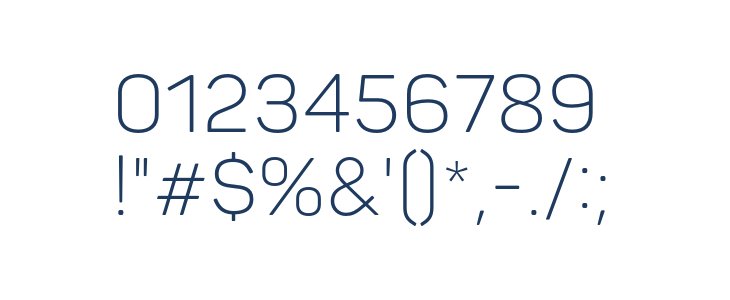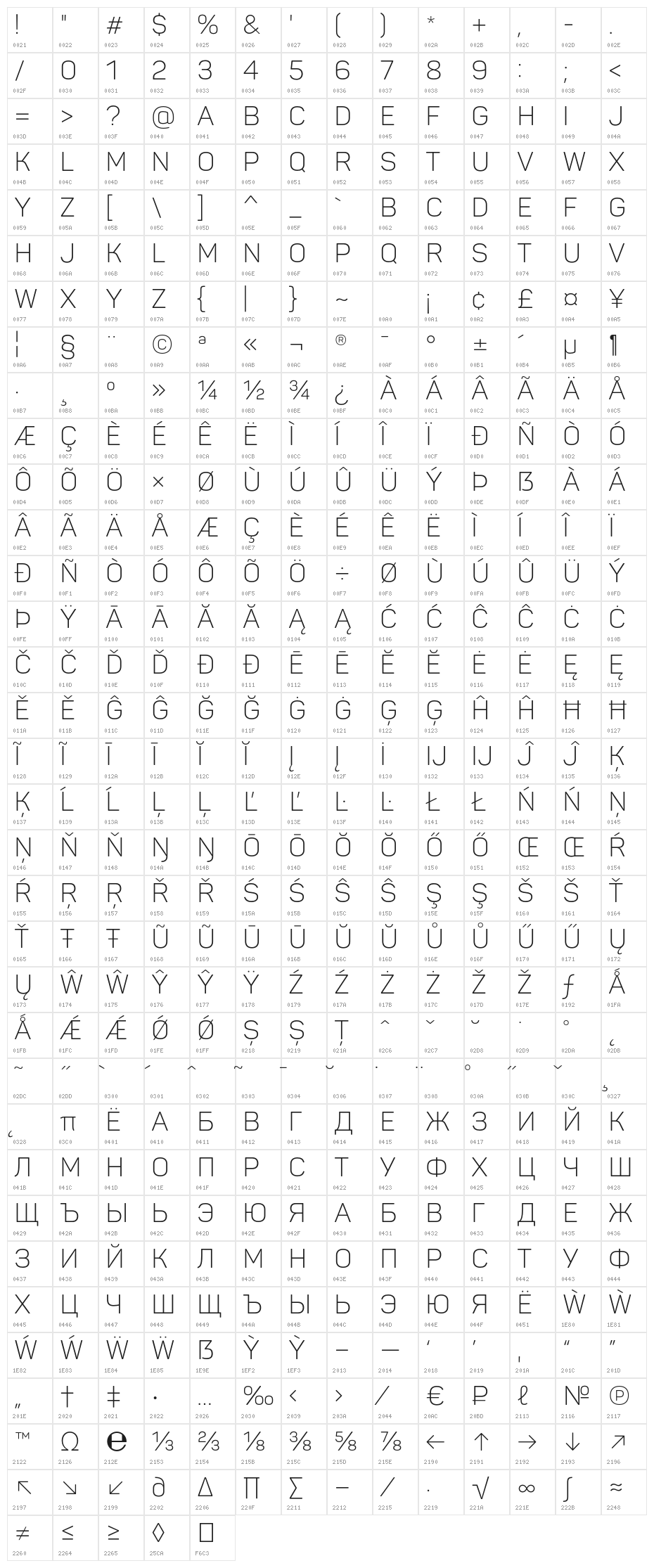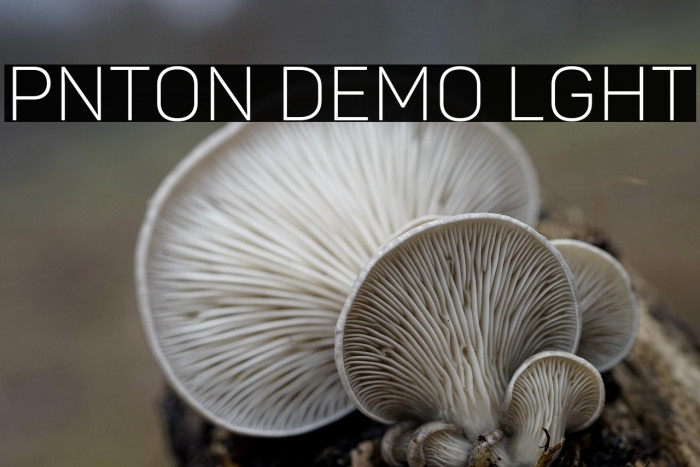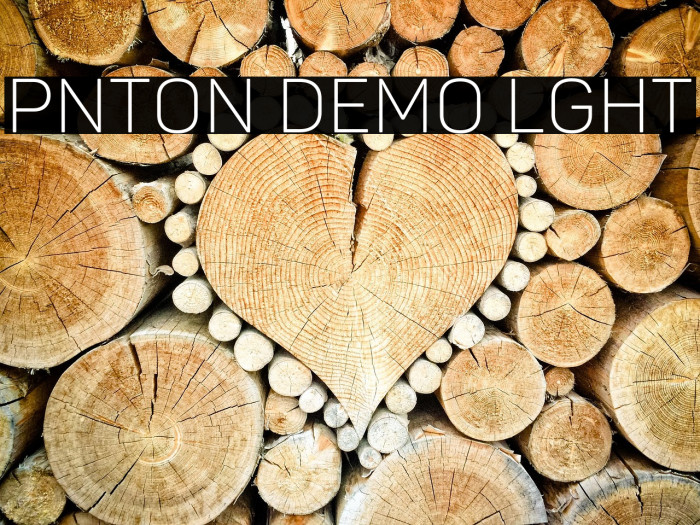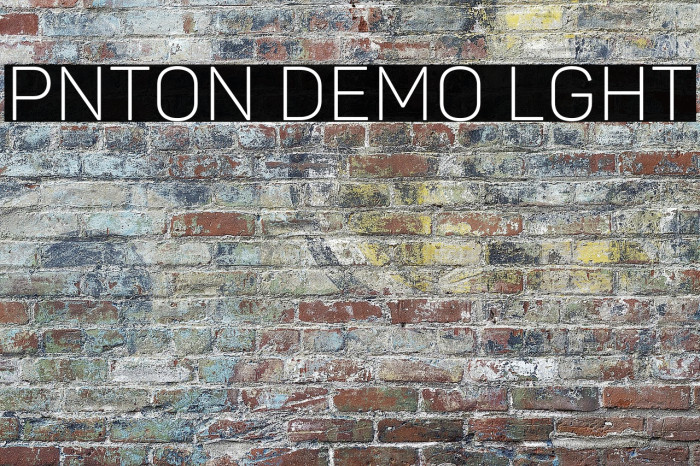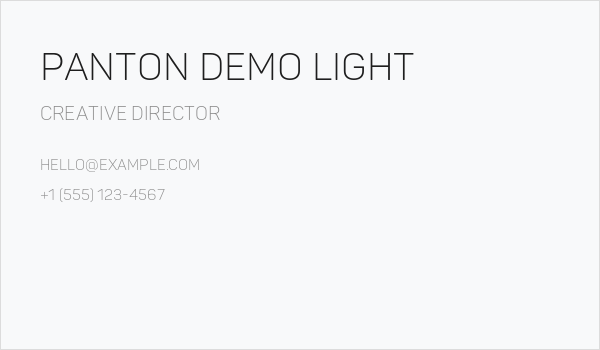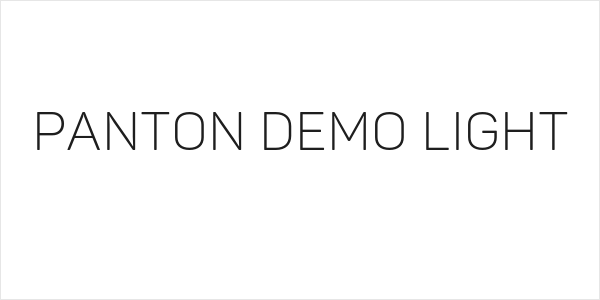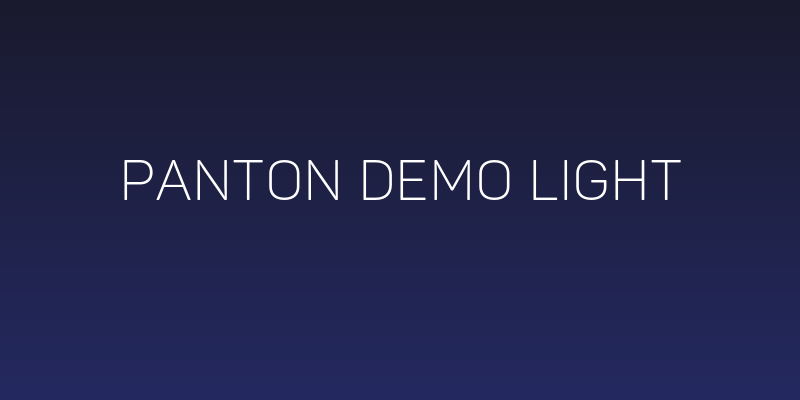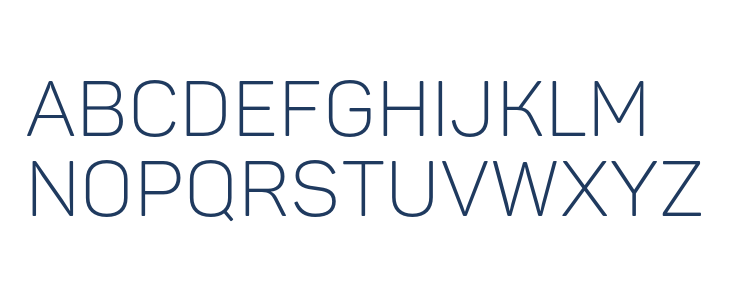
Panton Demo Light Font
Panton Demo Light Description
This font features a clean and modern sans-serif design with a light weight, offering a sleek and minimalist appearance. The characters are uniformly structured with a geometric influence, providing a sense of balance and harmony. The uppercase and lowercase letters maintain a consistent height and width, ensuring readability and clarity. The numerals are proportionate and align well with the overall style, making them suitable for various applications. Special characters are crafted with precision, adding to the font's versatility. The overall aesthetic is contemporary, making it ideal for modern design projects.